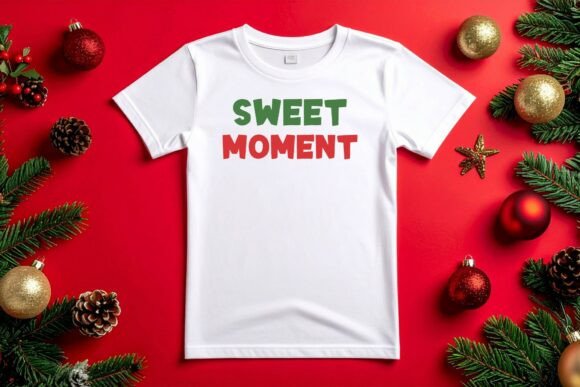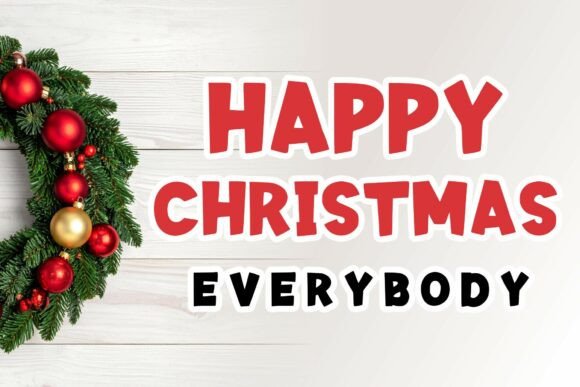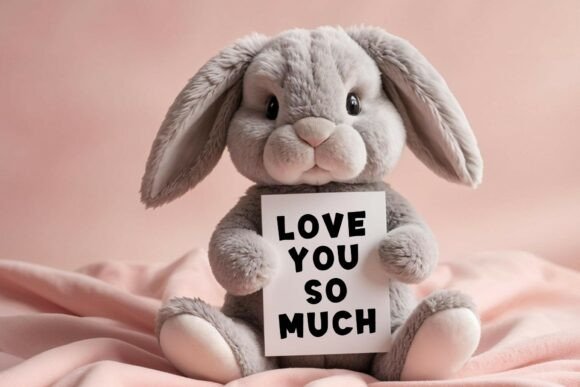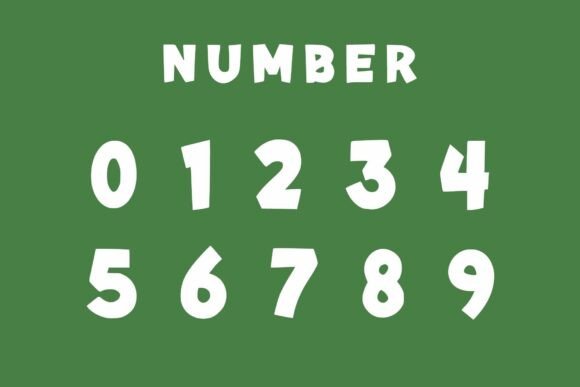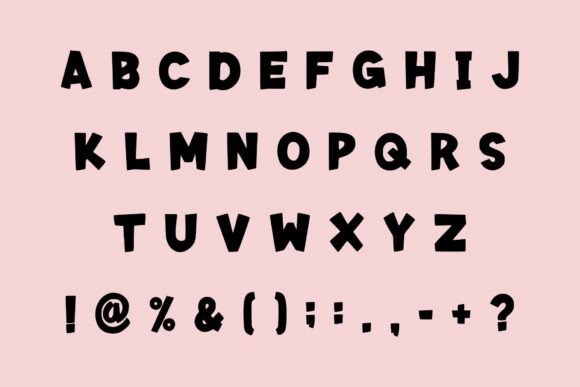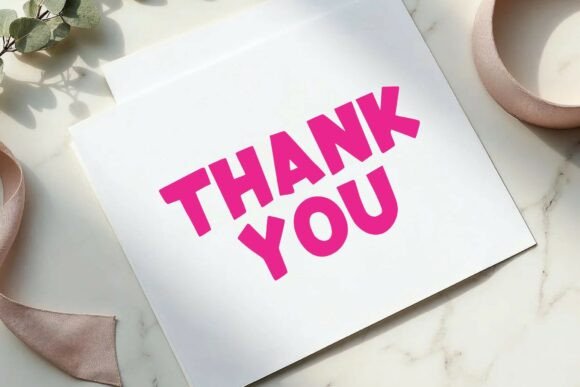
Introduction to Cupcake Christmas Font
As you sit at your desk, surrounded by festive decorations and twinkling lights, you’re hit with a creative wave – the perfect design to capture the magic of the holiday season. It’s moments like these that remind us of the power of typography in bringing our ideas to life. And what better way to do that than with the whimsical and delightful Cupcake Christmas Font?
This charming font is a must-have for any designer looking to add a touch of sugary sweetness to their projects. With its thick, rounded letterforms and delightful outline and shadow effect, the Cupcake Christmas Font is the perfect choice for creating high-quality designs that scream fun and festivity. Whether you’re working on a creative project or just need a design resource for your next holiday card, this font is sure to bring a smile to your face.
Key Features of Cupcake Christmas Font
- Features a unique, festive design perfect for holiday-themed projects
- Includes a range of characters, including uppercase and lowercase letters, numbers, and punctuation
Honest Review: Cupcake Christmas Font
I recently stumbled upon the Cupcake Christmas Font, and I’m excited to share my thoughts with you. As a designer, I’m always on the lookout for high-quality design resources to elevate my creative projects.
One of the things that caught my eye about this font is its festive and playful feel. It’s perfect for holiday-themed projects, and the transparent background makes it easy to use with various design elements. ✨ The font’s unique design and whimsical style make it stand out from more traditional holiday fonts.
- Works well for: holiday cards, gift tags, social media graphics, and other festive projects
- Great for: adding a touch of whimsy and personality to your designs
While the Cupcake Christmas Font is a great addition to any design library, I do have a few limitations to mention. ⚠️ The font is only available for personal use, which may limit its utility for commercial projects. Additionally, the font’s design is quite specific, so it may not be the best choice for more formal or traditional designs.
Overall, I’m impressed with the Cupcake Christmas Font, and I think it’s a great resource for designers working on holiday-themed projects. Its unique style and high-quality design make it a valuable addition to any design library.
Getting the Most Out of the Cupcake Christmas Font
For the best results, use the font in conjunction with other design elements, such as images and graphics. Experiment with different font sizes and styles to create a unique look.
The Cupcake Christmas Font is perfect for:
- Holiday invitations and greeting cards
- Festive social media posts and graphics
- Christmas party decorations and signage